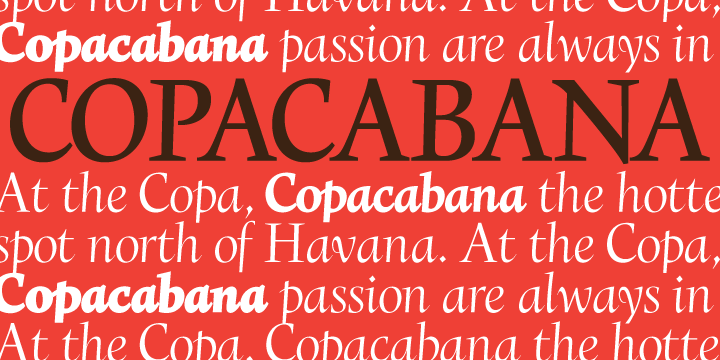
Copacabana is heavily based on one of my favourite typefaces Goudy Old Style Italic. It is sharper and more clearly defined than Goudy yet still retains it old style characteristics. The face is slightly angled so is basically upright whilst still retaining Italic characteristics.